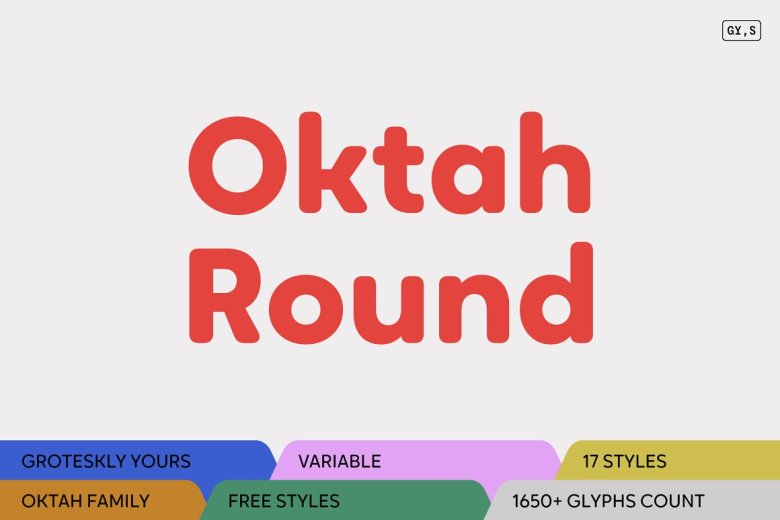
Oktah Round Font
Oktah Round is a version of Oktah Neue with soft and friendly lines, and modern warmth. It’s a typeface that adds a human touch to function to high degree. Oktah Round has 1600+ characters for each font and is available in 16 styles (from Thin to Black), as a variable font that allows you to change weight and slant angle. Oktah Round knows about 200 Latin alphabets well and it has very good support for Cyrillic ones such as Serbian, Russian and Ukrainian.
Relying heavily on the geometric forms introduced first in Oktah in all their proportions, this rounded version is more than just some smoother points of break. Some terminals got shape treatment to make curves sharper and more uniform. Other visual characteristics (like curving tails in ‘l’ and ‘t’) were dropped so that it would appear much sharper. The variety or styles, the availability of a variable font — these things give Oktah Round potential to be used across multiple media. Oktah Round is 100% balanced and perfectly suited to be the font you turn to time and again.
Oktah Round supports most Latin-based languages and can be used with Extended Cyrillic. Punctuation, numbers and special symbols or any possible additional symbols like squared numbers, geometric shapes etc — all of which ate up characters from the extremely large set of glyphs which is more than 1600 in size. All characters are spaced evenly and carefully kerned so there is no break between characters in any language. OpenType features consist of Legible Alternates, Case Sensitive Punctuation, fractions, Sub- and Superscript, Black and White Circled Figures, Ligatures, Oldstyle Figures, Tabular Figures and many more.
Oktah Round Sans Serif Font Family